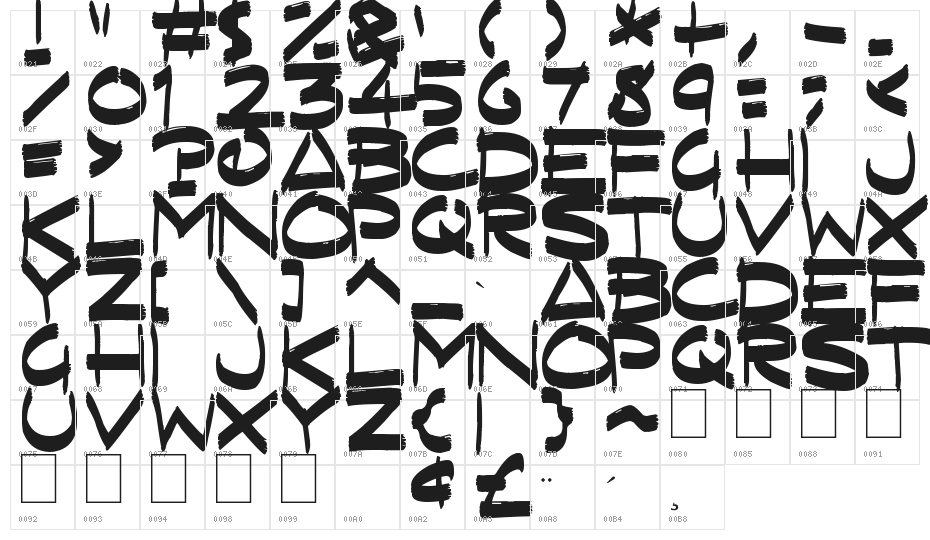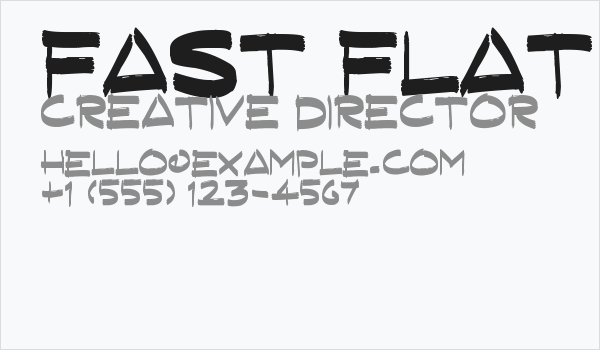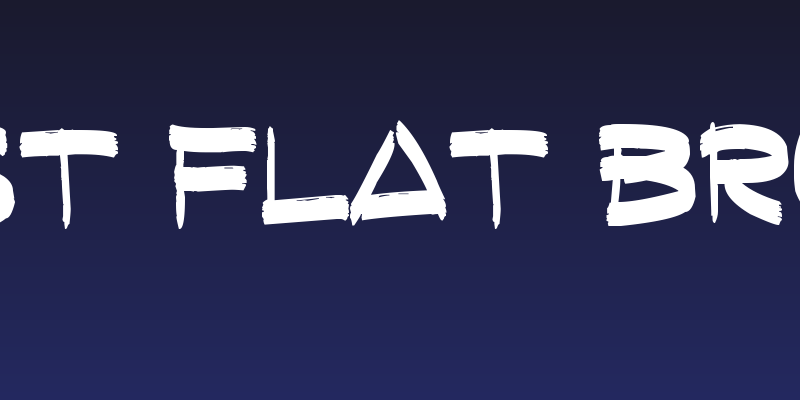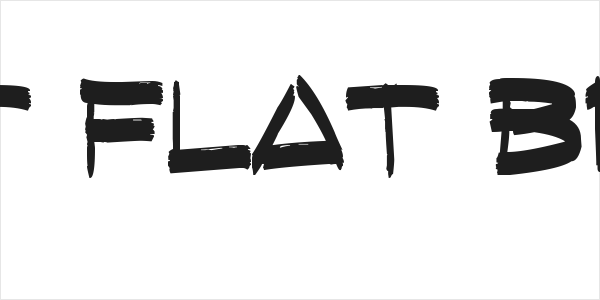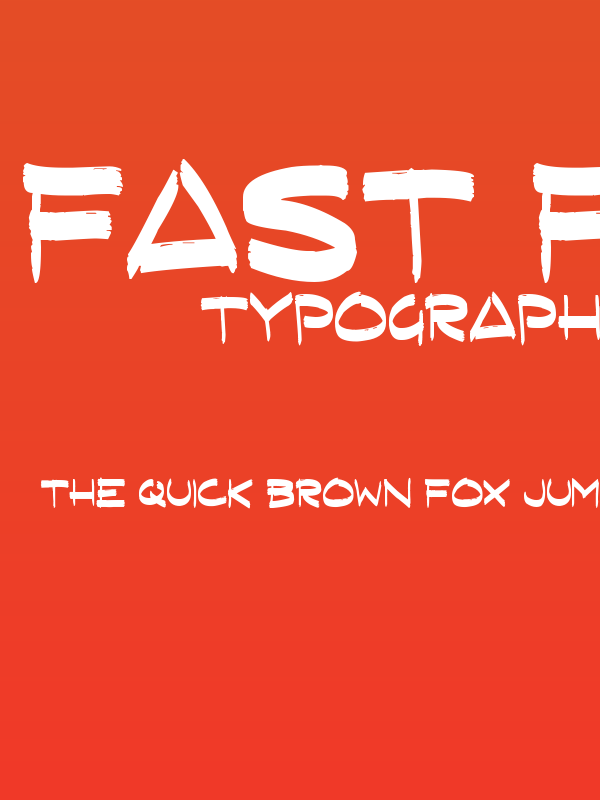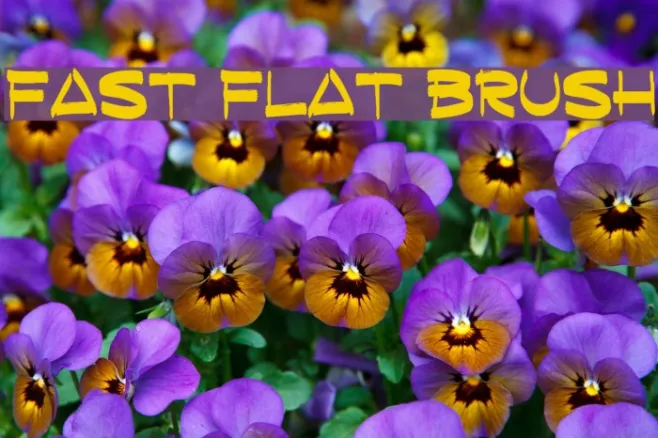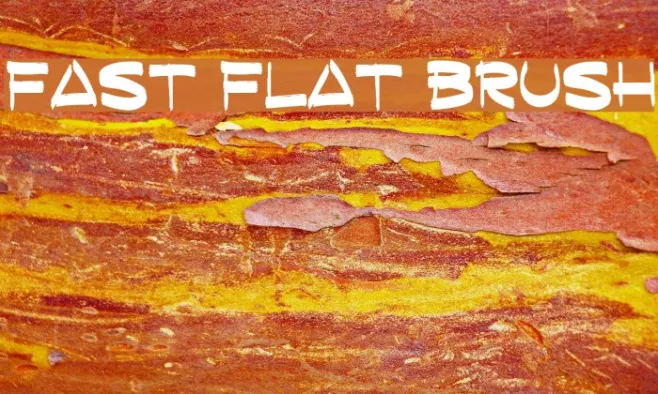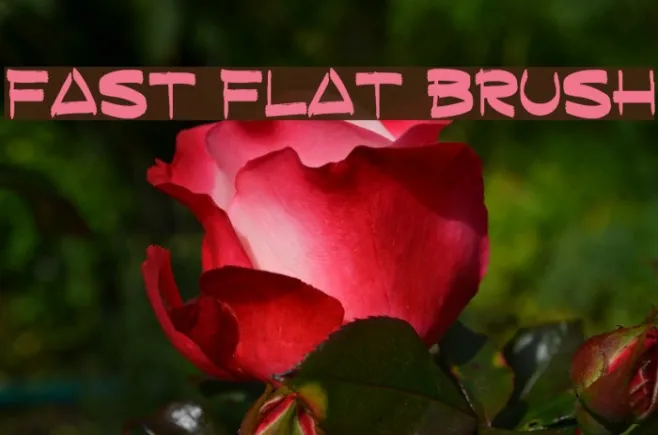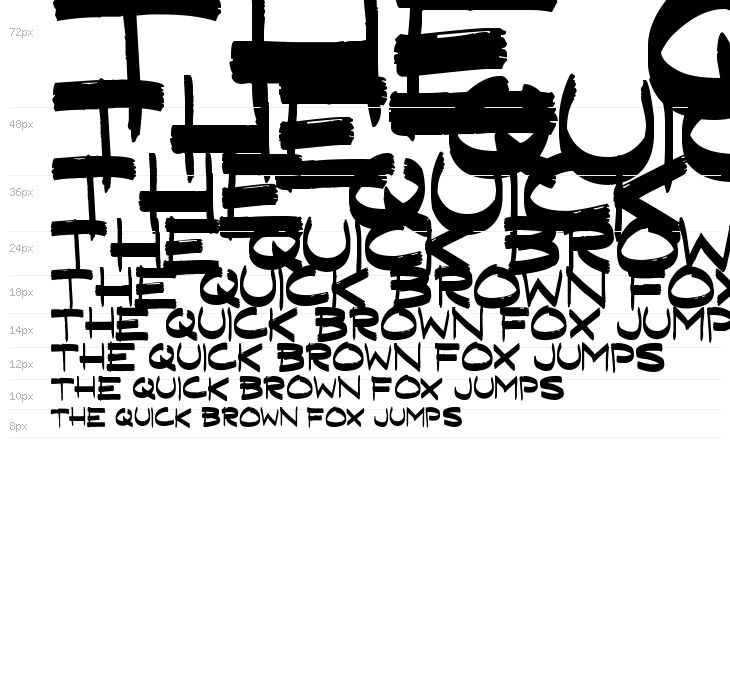
Fast Flat Brush Font
Fast Flat Brush Description
This font features a bold, brush-stroke style that exudes energy and dynamism. The characters are crafted with a flat brush effect, giving them a textured appearance that mimics hand-painted lettering. The uppercase and lowercase letters maintain a consistent style, with sharp angles and varying stroke widths that add a sense of movement. Numbers and special characters are equally expressive, making them suitable for creative and artistic projects. The overall design is both modern and edgy, perfect for making a bold statement.
| Overall Style | Modern, Edgy |
| Proposed Projects | Ideal for posters, album covers, streetwear branding, and any project requiring a bold, artistic touch. |